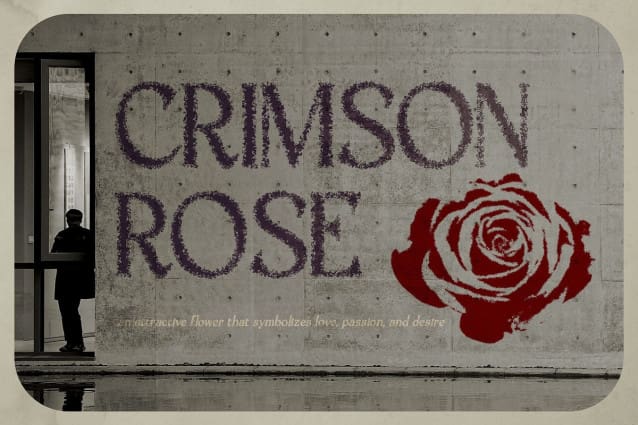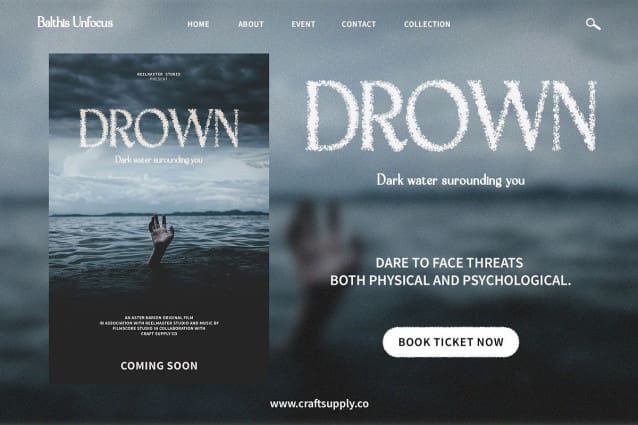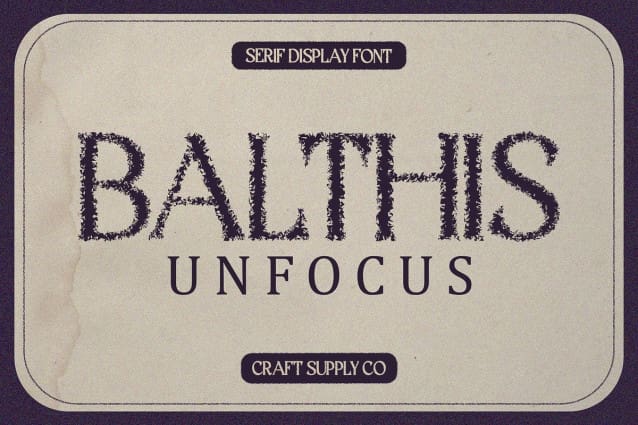
Balthis Unfocus Font
Balthis Unfocus Font: A Unique Display Typeface. Blurry Serif Elegance Balthis Unfocus presents a distinctive display font with a twist. Its serif characters are deliberately unfocused, adding a dreamy and ethereal quality to your designs.
Perfect for Display Projects Tailored for display purposes, This font excels in capturing attention and making a statement. Whether it’s headlines, banners, or posters, this font adds a touch of intrigue to any display project.
Subtle Yet Striking Despite its blurred serifs, This font retains an undeniable charm and sophistication. Its subtle blurriness creates an intriguing visual effect without sacrificing readability, making it suitable for various design applications.
Versatile Application This font is not limited to a single design style or industry. From branding and advertising to editorial layouts and web design, its unique aesthetic can enhance a wide range of projects, adding a distinctive flair to your typography.
Captivating Blurriness This font breaks the mold of traditional serif display fonts with its intriguing unfocused effect. Ideal for capturing attention and adding a touch of mystery to your designs, this font offers versatility and charm for various creative endeavors. Explore the allure of This font and elevate your display typography with its captivating blurriness.